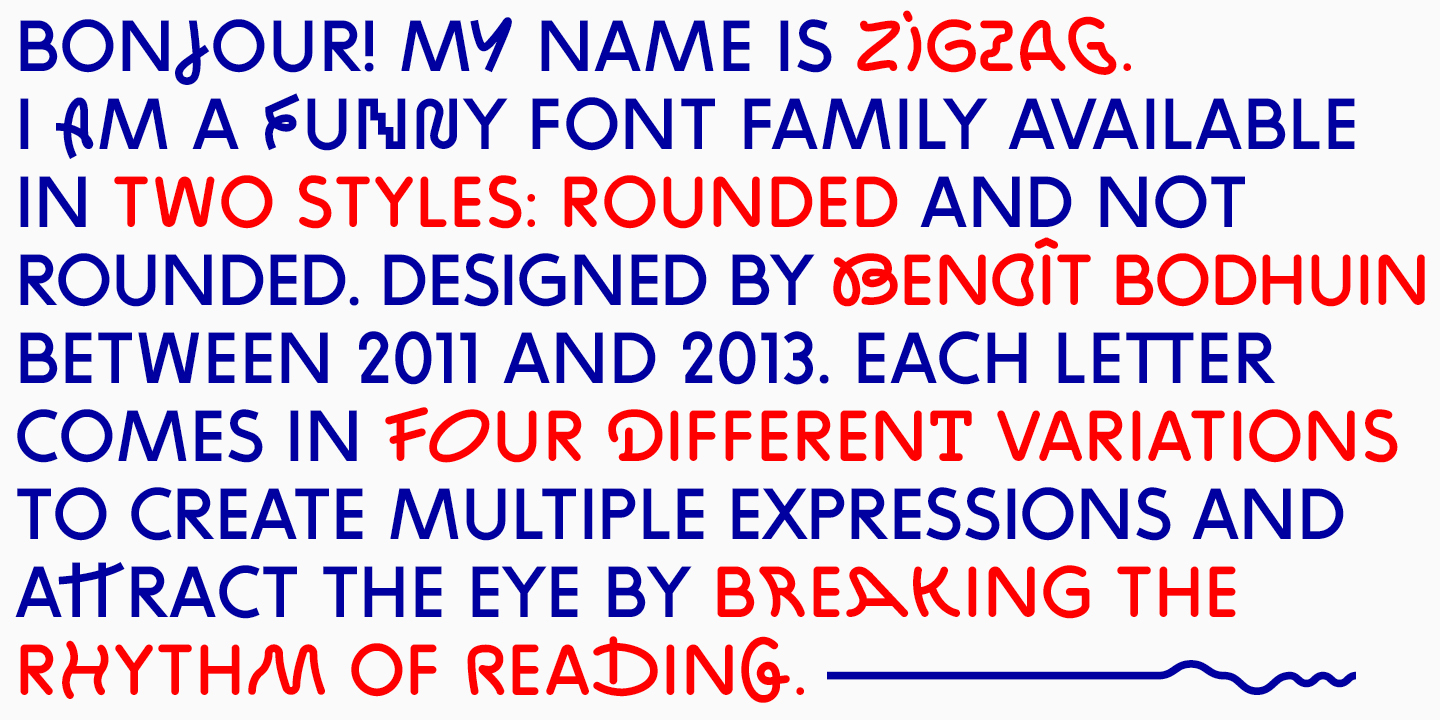
Zigzag Font is a dynamic and playful display typeface perfect for headlines, logos, posters, and creative branding projects. Its sharp angles and zigzag patterns inject energy and excitement, making your designs instantly eye-catching.
What makes Zigzag Font Free Download so exciting is its unique geometric style that breaks away from traditional typography, giving a modern, edgy feel while maintaining readability.
The Zigzag Font family usually includes Regular and Bold weights, allowing designers to create bold and versatile typographic compositions with flair.
Whether you’re working on youth-focused campaigns, entertainment graphics, or vibrant event materials, Zigzag Font Free Download adds a fresh, animated touch that makes your projects stand out.